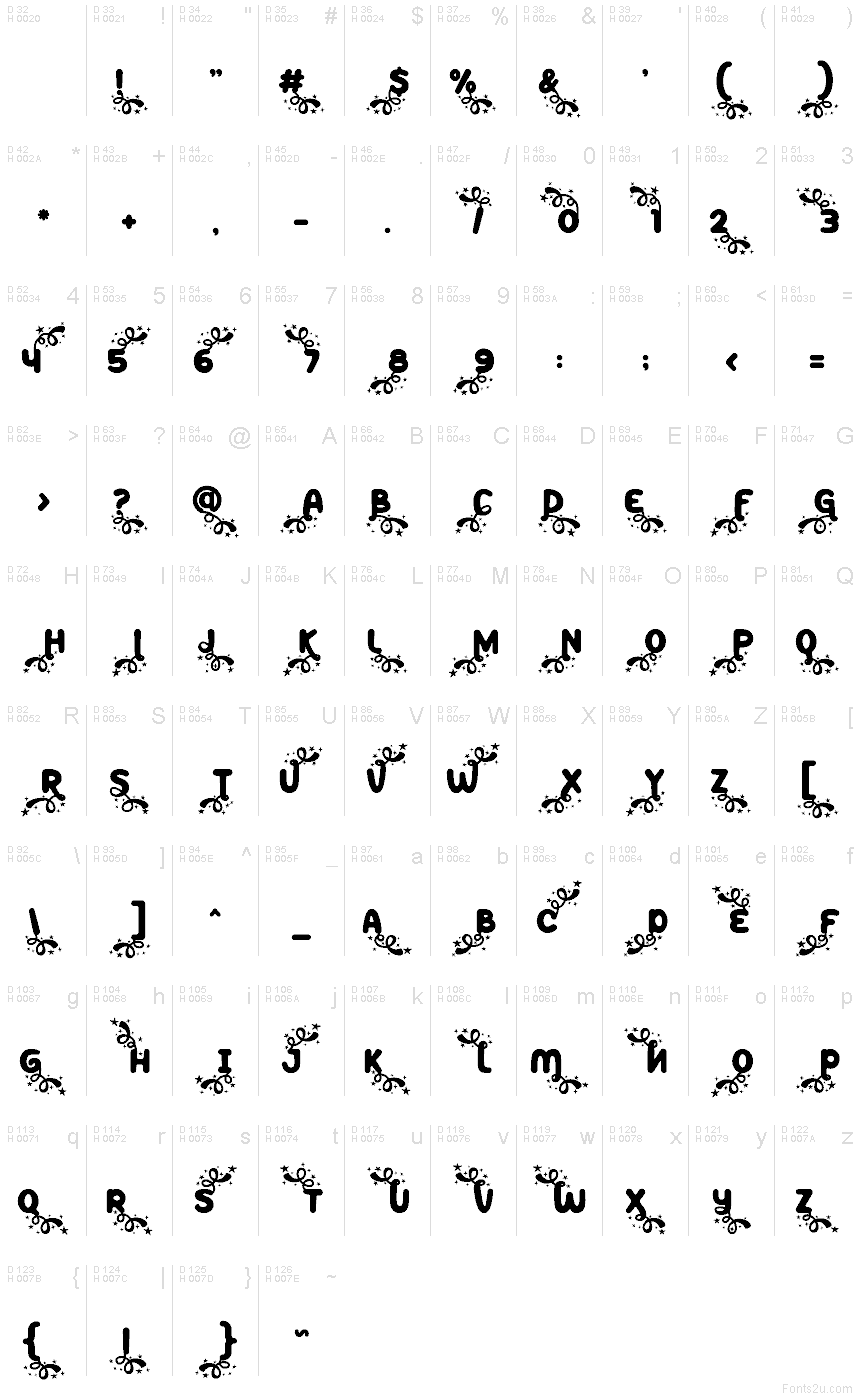
Peppy Pegasus Magic
Peppy Pegasus Magic font from PutraCetol Studio is a bold decorative display design with all the whimsical vibes you need. Influenced by vintage styles, the font features ornate floral embellishments all over its characters for an exquisite appearance. The font holds a unique hand-drawn style that gives it a warm human touch.